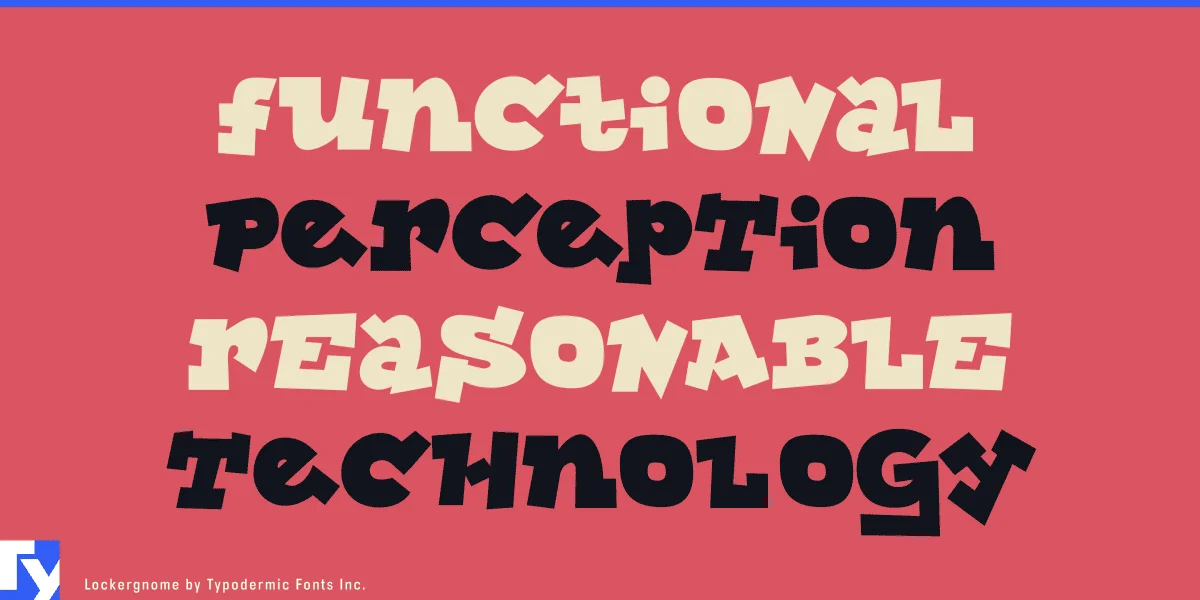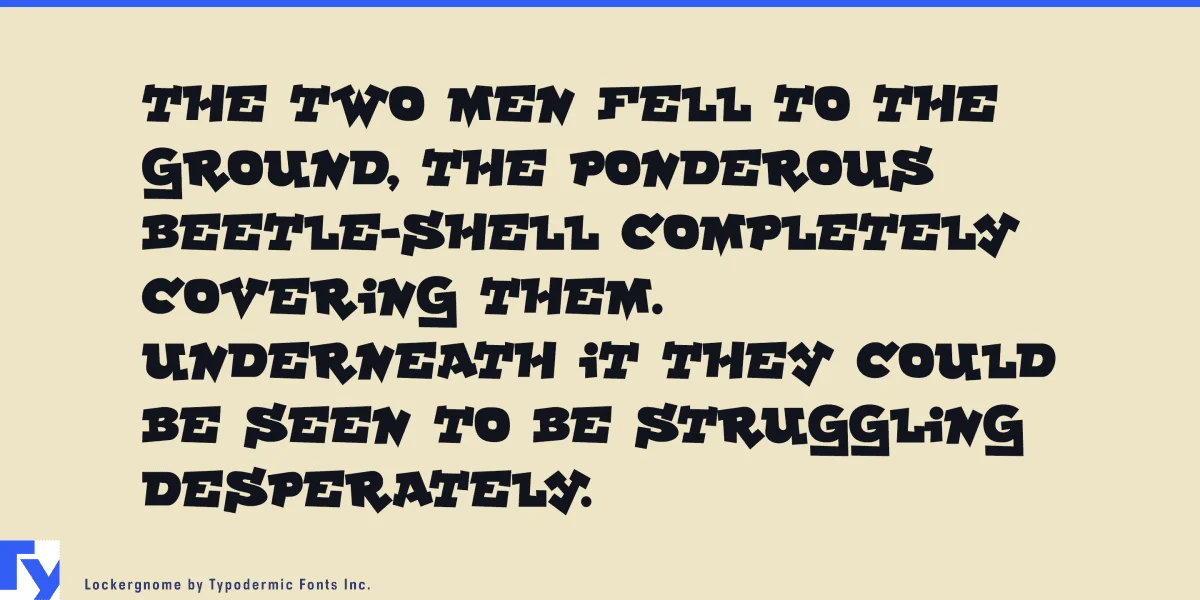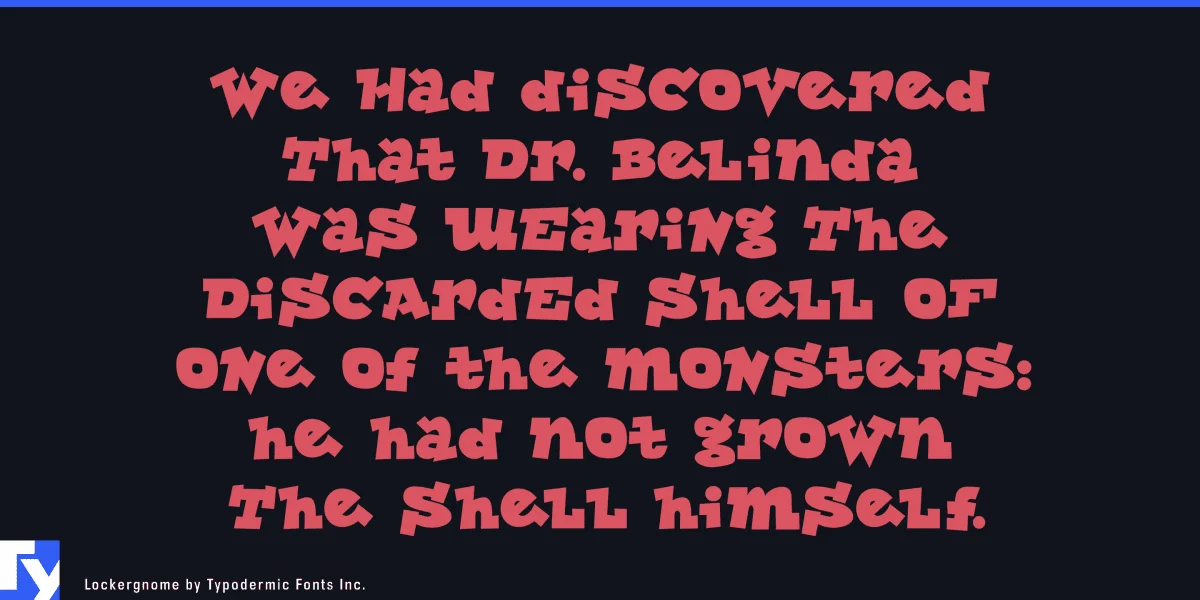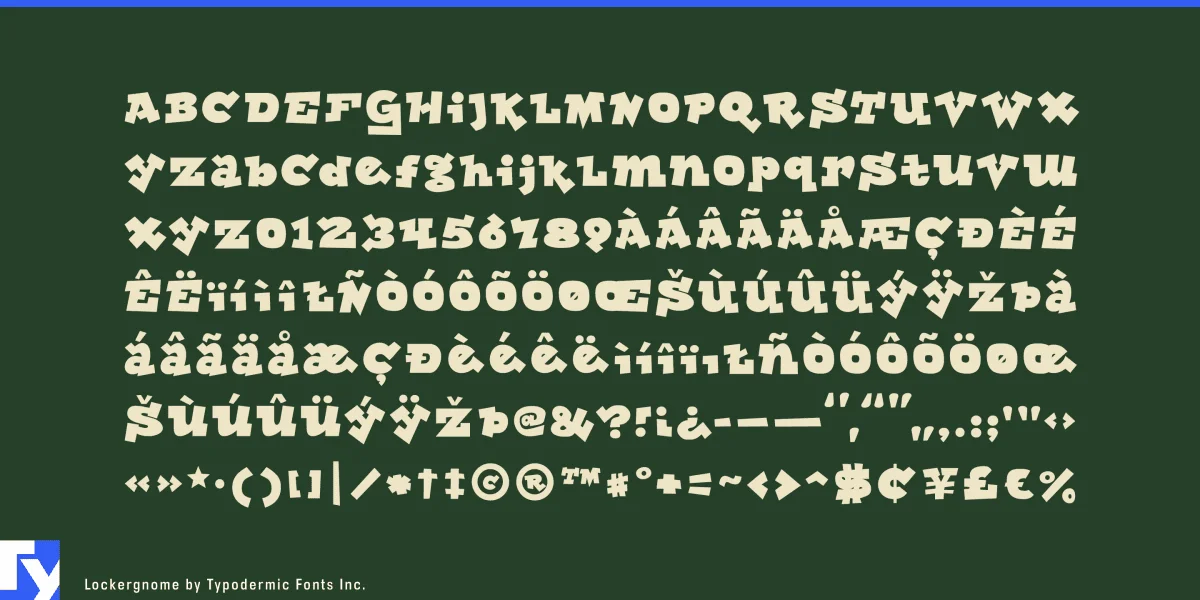
Lockergnome is an aggressive headline screamer. Nasty serifs and obnoxious curves combine to produce an alphabet with a foul attitude. Some Latin-based European writing systems are supported, including the following languages. Afaan Oromo, Afar, Afrikaans, Albanian, Alsatian, Aymara, Basque, Bemba, Bikol, Breton, Cape Verdean, Creole, Catalan, Cebuano, Chamorro, Chavacano, Danish, Dawan, Dholuo, Dutch, English, Estonian, Faroese, Fijian, Filipino, Finnish, French, Frisian, Friulian, Galician, Genoese, German, Guadeloupean Creole, Haitian Creole, Hiligaynon, Icelandic, Ilocano, Indonesian, Irish, Italian, Jamaican, Kaqchikel, Kikongo, Kinyarwanda, Kirundi, Lombard, Low Saxon, Luxembourgish, Makhuwa, Malay, Ndebele, Neapolitan, Norwegian, Novial, Occitan, Papiamento, Piedmontese, Portuguese, Quechua, Rarotongan, Romansh, Sango, Saramaccan, Sardinian, Scottish Gaelic, Shona, Sicilian, Silesian, Slovak, Slovenian, Somali, Sotho, Spanish, Swahili, Swazi, Swedish, Tagalog, Tetum, Tshiluba, Tsonga, Tswana, Tumbuka, Uzbek (Latin), Venetian, Võro, Walloon, Waray-Waray, Wayuu, Xhosa, Yapese, Zapotec Zulu and Zuni.